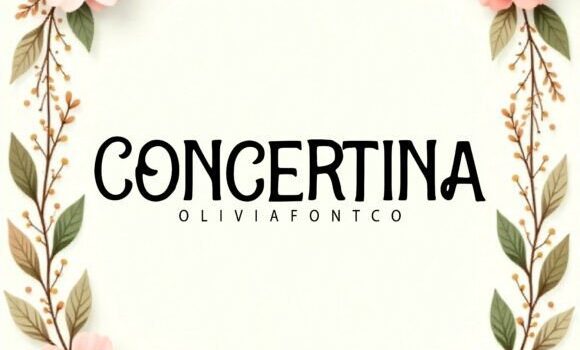
concertina
Concertina Font - Featured Image
Concertina Font – Free Download Introduction to Concertina Font Concertina is a quirky and charming display font that strikes the perfect balance between playful and elegant. 📸 Preview Gallery 2 images 📌 Product Name Concertina Font 👤 Author OliviaFontCo 📂